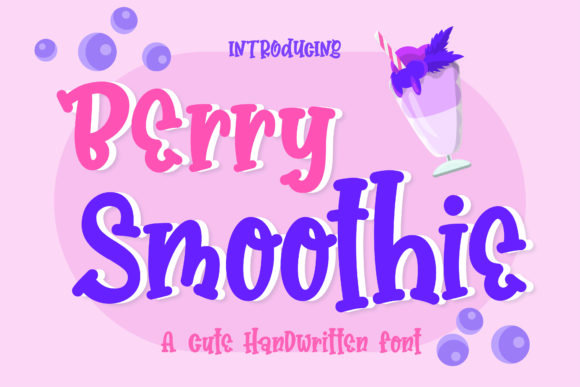
The Perfect Blend: Introducing Berry Smoothie Font
There’s nothing quite like the thrill of staring at a blank canvas, waiting for inspiration to strike. It’s the moment when creativity meets possibility, and the possibilities are endless. For designers, this moment is the spark that sets the wheels in motion, leading to innovative projects and beautiful art.
That’s where the Berry Smoothie Font comes in – a cool and quirky display font that adds a touch of warmth and jolliness to any project. This beautiful font is designed to help bring your ideas to life, making it the perfect addition to your design arsenal. Whether you’re working on a branding project or creating a stunning visual identity, Berry Smoothie Font is the perfect blend of style and substance.
With its endless variations and playful feel, the Berry Smoothie Font is a valuable asset for designers looking to add a unique touch to their work. So why settle for a standard font when you can have a smoothie that’s truly one-of-a-kind? Try the Berry Smoothie Font today and discover a world of creative possibilities!
Berry Smoothie Font Key Features
- Unique Characteristics: The font features a unique blend of rounded and geometric shapes, giving it a friendly and approachable feel while maintaining a level of sophistication.
Berry Smoothie Font Review
Overall, I think Berry Smoothie Font has a lot of potential, but it’s not without its flaws. Here are my honest thoughts on this font.
- Fun and playful vibe: The font has a unique, hand-drawn feel that’s perfect for branding or packaging that needs a touch of whimsy.
- Good legibility: Despite its quirky design, Berry Smoothie Font is surprisingly easy to read, even at smaller font sizes.
- Versatility: The font comes in multiple weights and styles, making it suitable for a range of applications, from body text to headings.
- Lack of consistency: Some characters, like the “g” and “j”, look a bit off, which can be jarring to the eye.
- Not ideal for long blocks of text: The font’s irregular shape and uneven spacing can make it difficult to read large amounts of text.
- May not be suitable for formal applications: The font’s playful vibe may not be suitable for more formal branding or design projects.
Berry Smoothie Font is a fun, quirky font that’s perfect for branding or packaging that needs a touch of personality. While it has its limitations, it’s a great choice for projects that require a bit of whimsy and flair.
The Berry Smoothie Font is ideal for creating eye-catching and playful designs, such as:
Food and beverage branding
Children’s products and packaging
Summer-themed designs and graphics
Remember to use the font in moderation and balance it with other design elements to avoid visual overload.